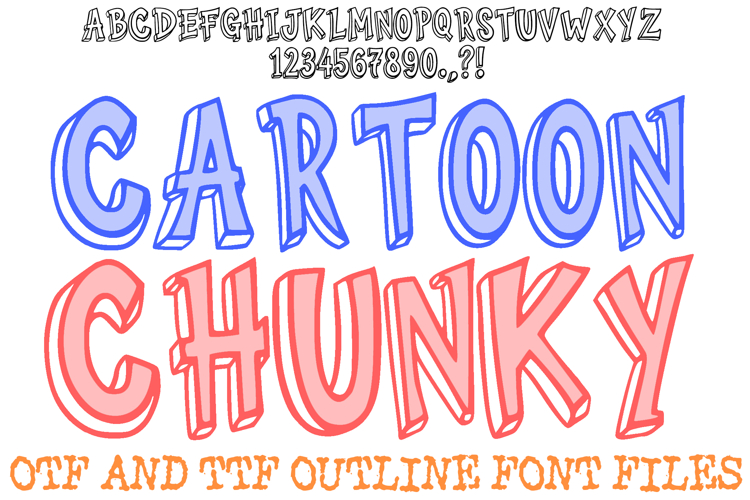
Cartoon Chunky Font 3D Doodle Lettering Type ABC OTF
Inject some serious fun into your creative projects with the Cartoon Chunky Font! This hand-drawn, 3D display alphabet is designed with thick, playful block characters that capture a high-energy, animated vibe. Its bold outlines and clean dimensional shadows make it a top-tier choice for children’s branding, "mod" classroom decor, high-impact YouTube thumbnails, and vibrant apparel designs.
The "pop" and "punch" of each letter provide a heavy physical presence on the page while maintaining excellent legibility. Whether you’re crafting stickers for a digital planner or designing the logo for a new toy brand, the Cartoon Chunky Font offers a professional yet whimsical aesthetic that stands out in any crowd.
Dynamic 3D Perspective: Each character features a hand-drawn shadow effect that adds depth and dimension to your text.
Artisan Sketched Outlines: The slightly irregular, hand-inked borders provide an authentic, human feel that digital fonts often lack.
Versatile Thick Weight: The heavy-duty silhouette is perfect for layering, sublimation, and vinyl cutting projects.